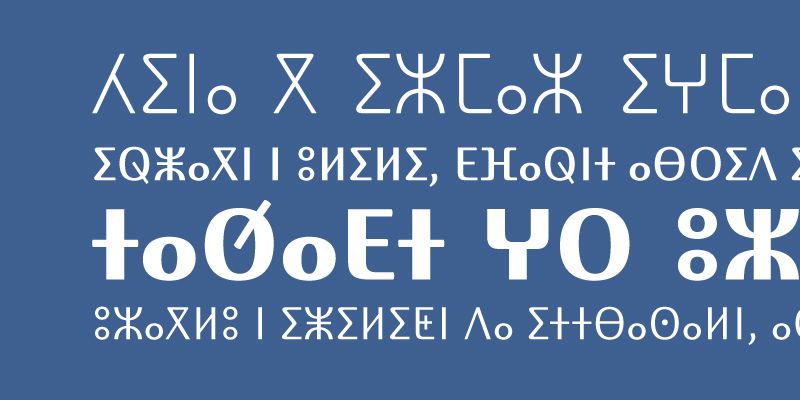
Kigelia Tifinagh Font Free Download is a unique and culturally inspired typeface that incorporates the Tifinagh script, traditionally used by the Berber-speaking communities of North Africa. This font brings an authentic and artistic touch to any design that seeks to reflect the beauty and heritage of Tifinagh characters, making it perfect for projects related to cultural events, heritage sites, and ethnic branding.
Kigelia Tifinagh offers a distinct, geometric, and stylized approach to the Tifinagh script, blending it seamlessly with modern design principles. Whether you're creating posters, logos, educational materials, or cultural content, this font will bring an impactful and visually engaging presence.